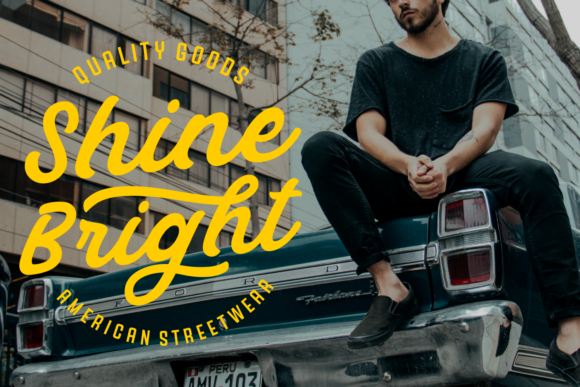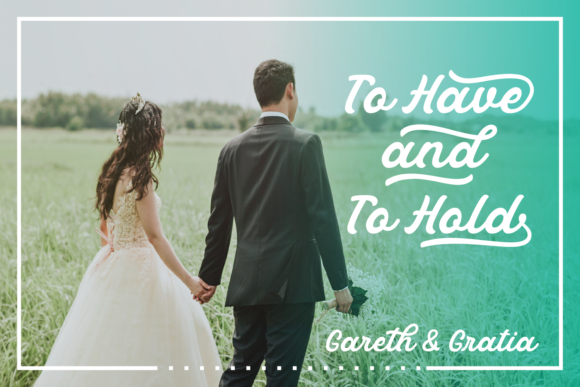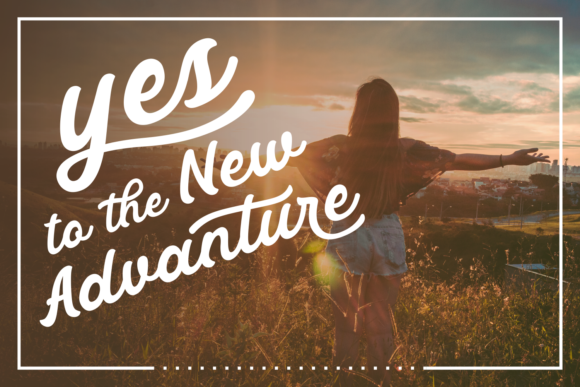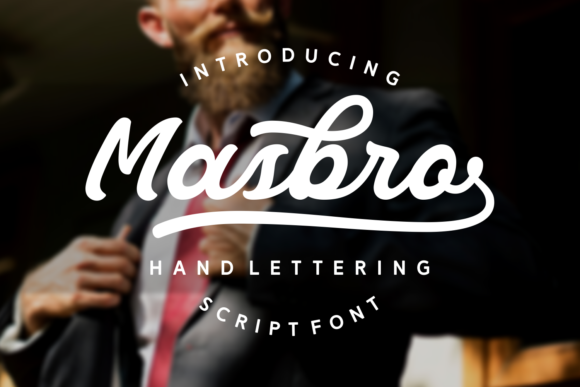
Introduction to Masbro Font
Masbro is a beautiful hand lettered script font.
With it’s beautiful swashes and striking letters, Masbro can be used for almost every design .
Masbro Font offers exceptional quality and versatility, making it a valuable addition to your design toolkit. Whether you’re creating for personal projects or commercial use, Masbro Font delivers professional results.